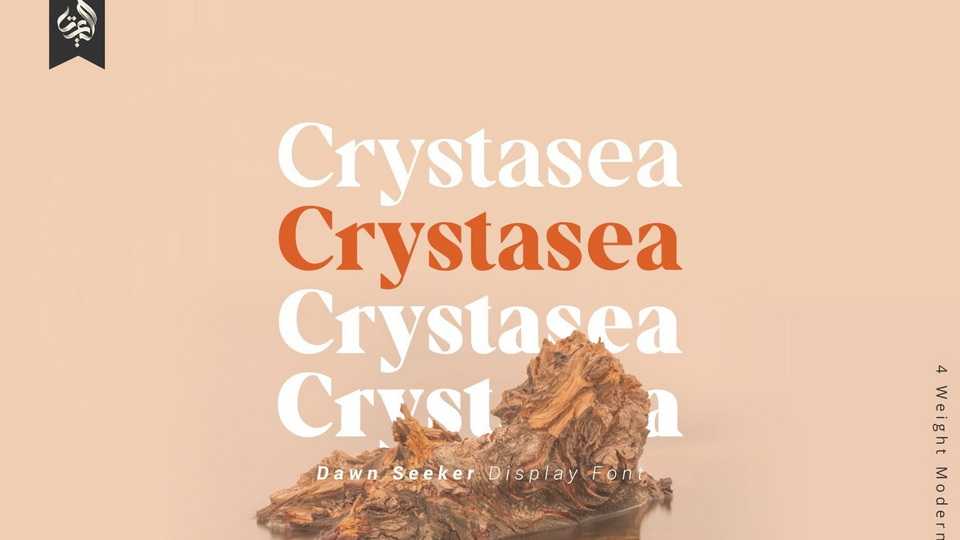
Download Crystasea font, a stunning dawn seeker display typeface. Crystasea is very suitable for magazine, headline, website, ads, product package and all type of design project you have.
Designer: Aluyeah Studio